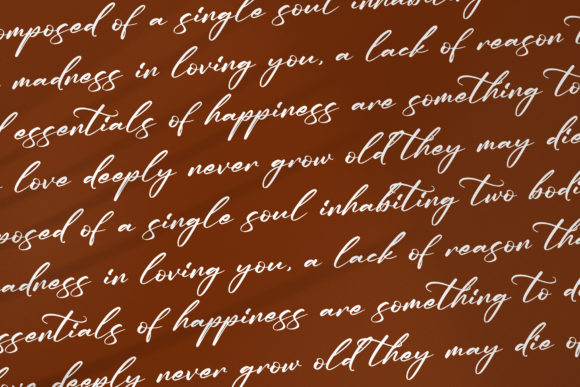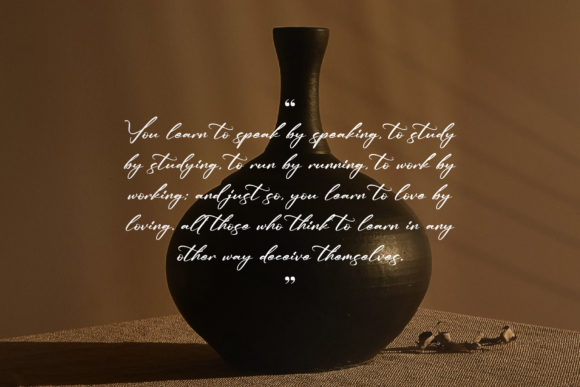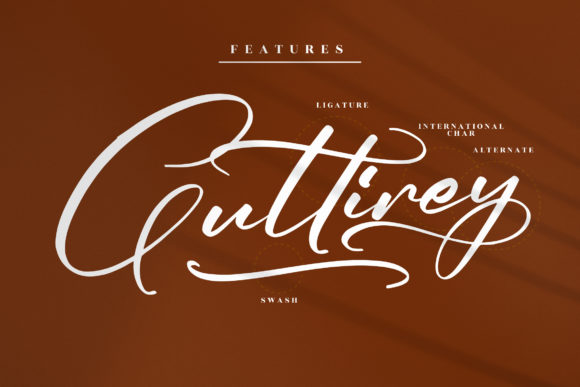
About Sandiago Font
Introducing “Sandiago – Modern Script Font,” a versatile typeface suitable for a wide range of projects. Whether you’re working on logos, branding, homeware designs, product packaging, quotes, posters, apparel, book covers, invitations, greeting cards, labels, or any other creative endeavor, “Sandiago” brings a beautiful script taste to your designs.
This modern script font is crafted to add a contemporary and stylish touch to your projects. Its adaptability makes it an ideal choice for diverse applications, from branding to special events. The fluid and graceful strokes of “Sandiago” contribute to its appeal, creating a font that resonates with elegance.
Beyond being just a font, “Sandiago” is a valuable tool for enhancing the aesthetics of your designs. The PUA encoding ensures easy access to the font’s amazing glyphs and ligatures, providing you with the flexibility to explore and utilize its full range of design possibilities.
Imagine “Sandiago” as the perfect complement to your creative vision. Whether you’re designing a logo, crafting invitations, or working on product packaging, let this font be the element that brings a beautiful script taste to your projects.
In summary, “Sandiago – Modern Script Font” is designed to elevate the visual appeal of your diverse range of projects. Embrace its modern and script characteristics, access the amazing glyphs and ligatures with ease, and let it be the font that adds a touch of beauty and sophistication to your designs.